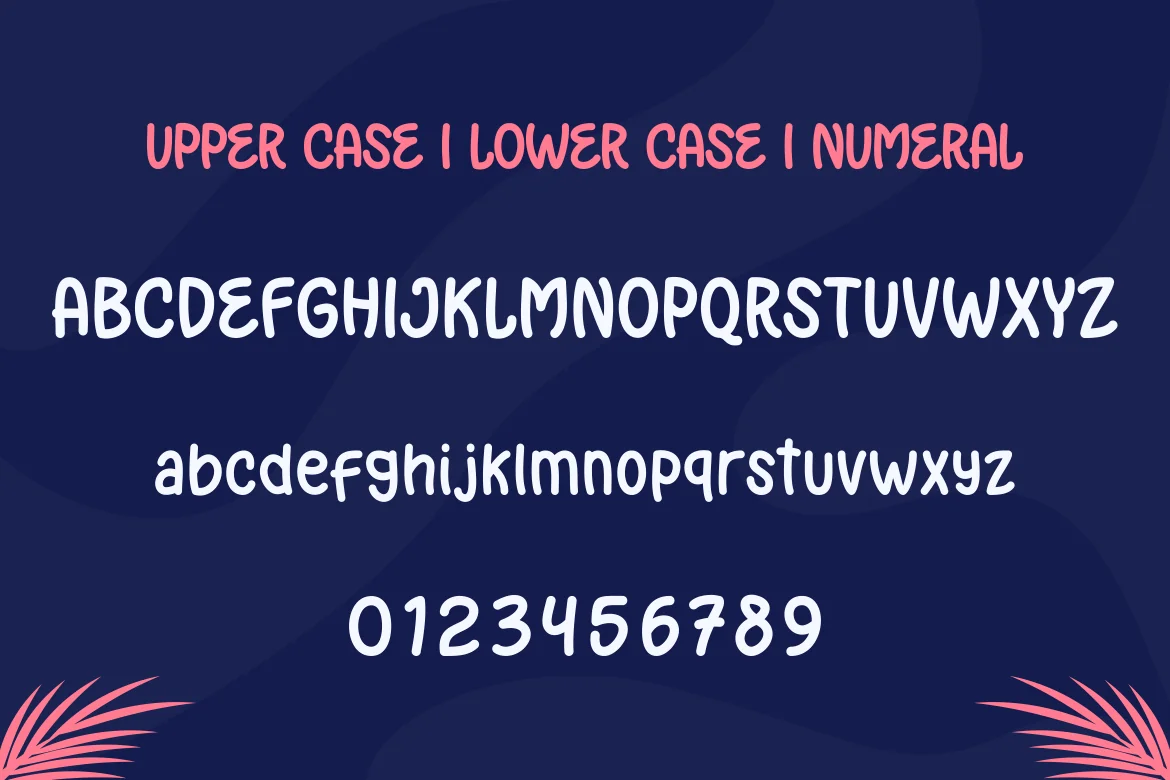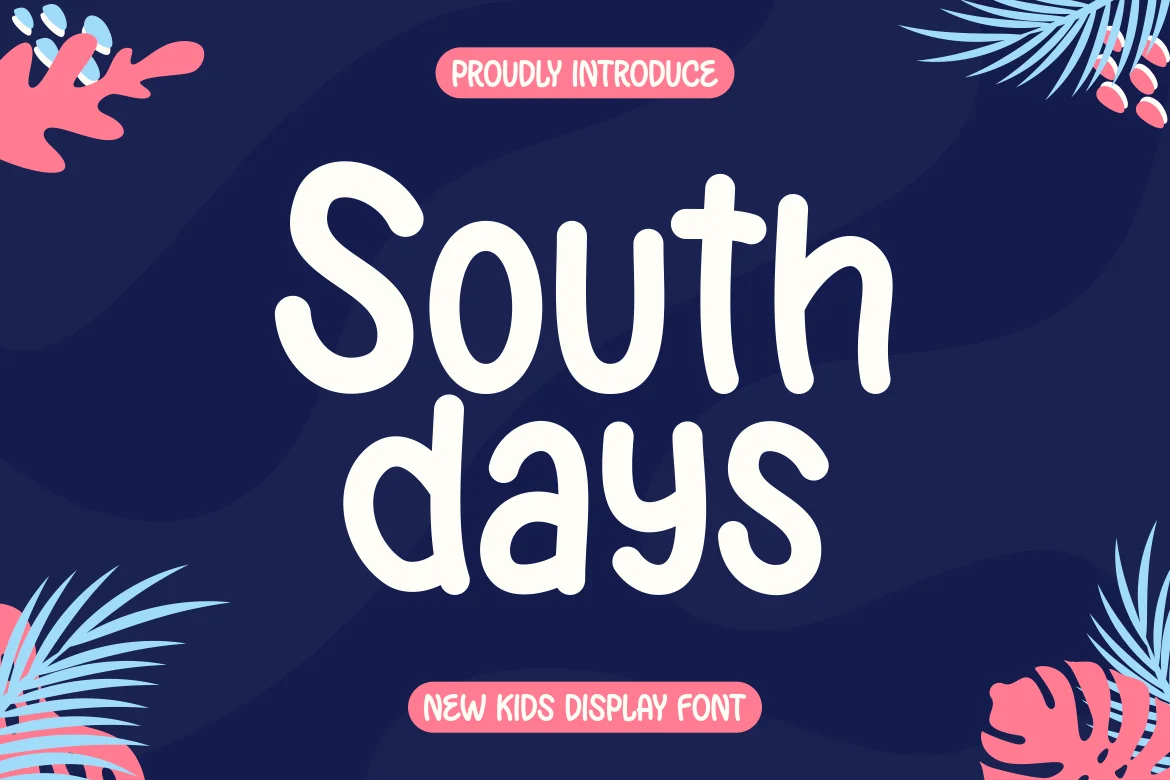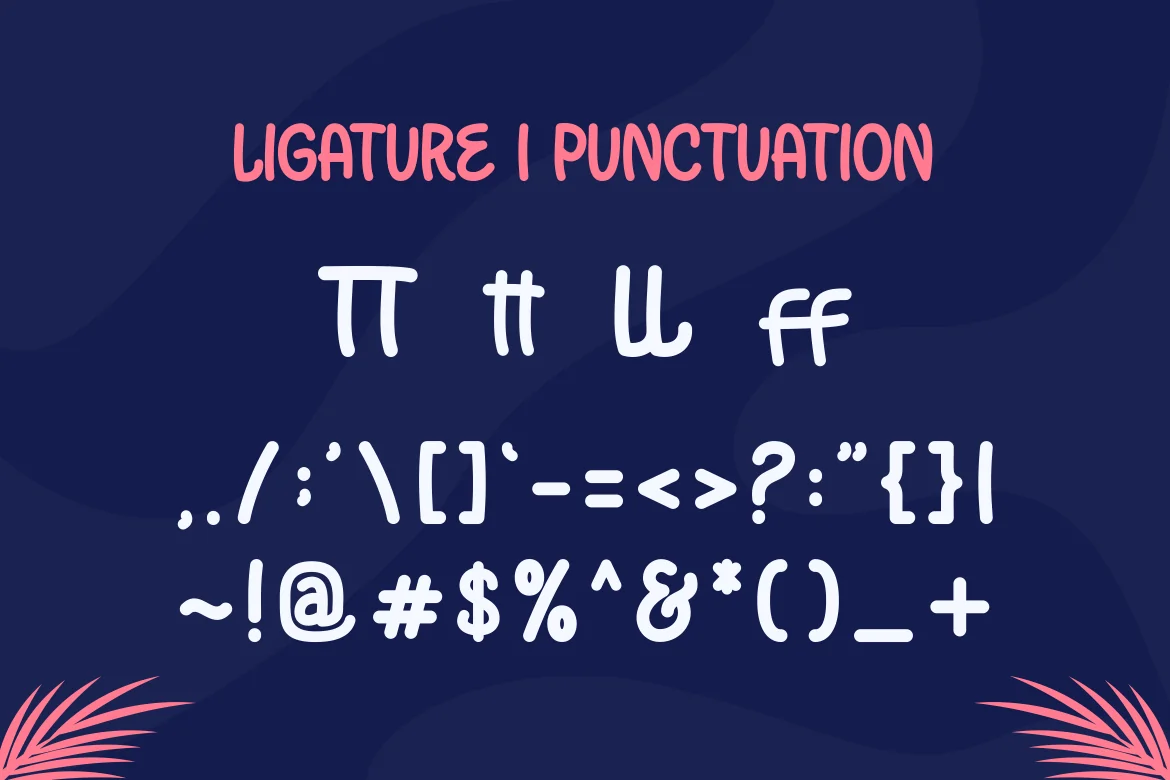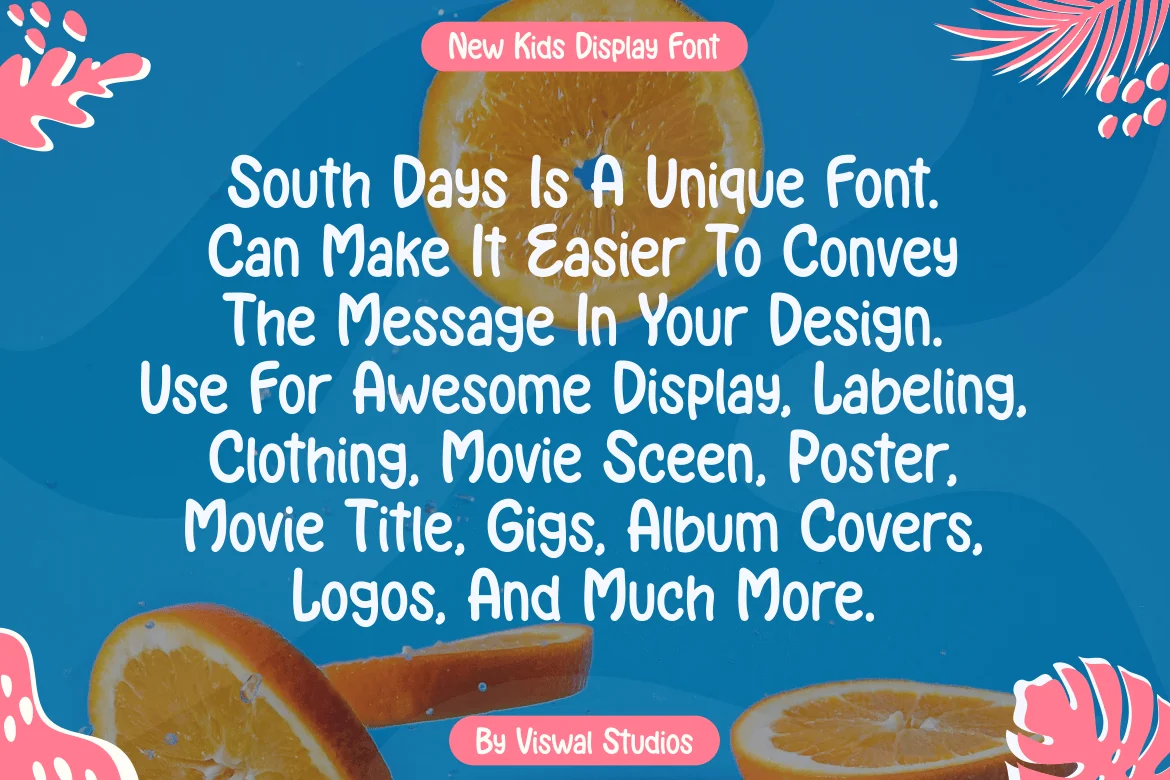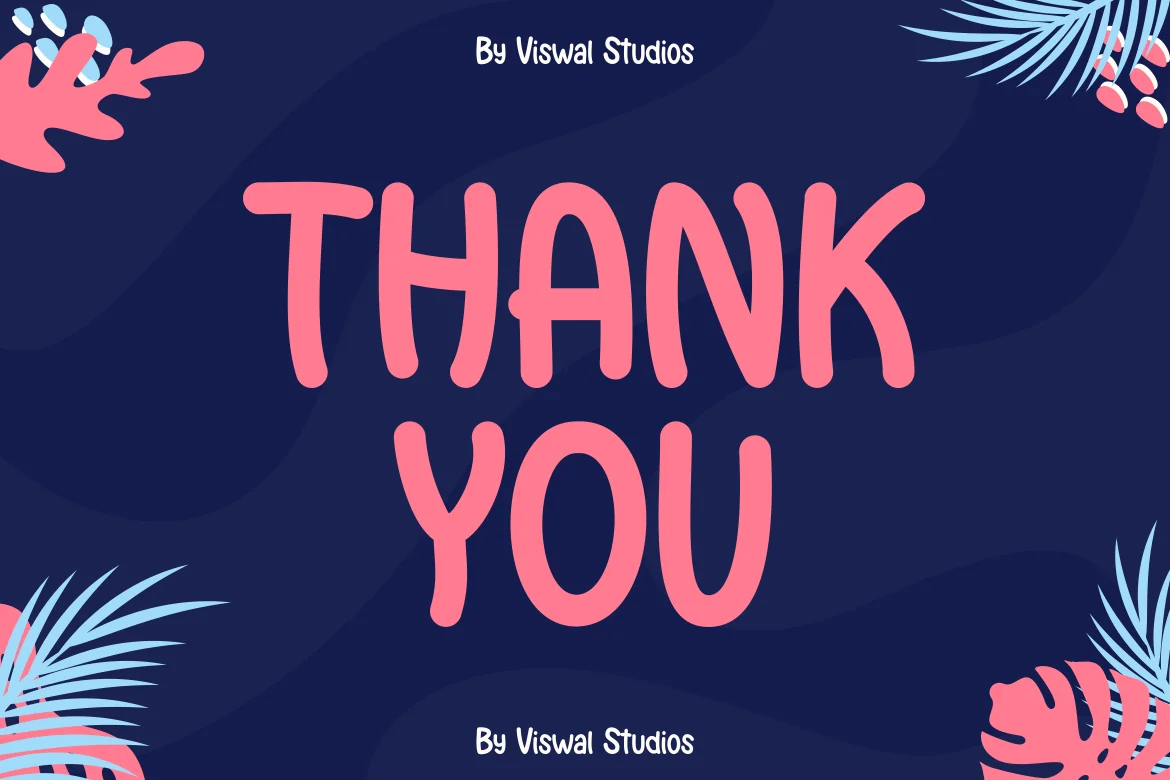
South Days – Summer Font
Presenting South Days – Font is suitable for badge, labels, logo, branding, magazine, poster and etc. Our fonts have Uppercase & Lowercase, Numeral & Punctuation, Multilingual support and Opentype Features. For Amazing designs you can mix with other fonts as a complement.